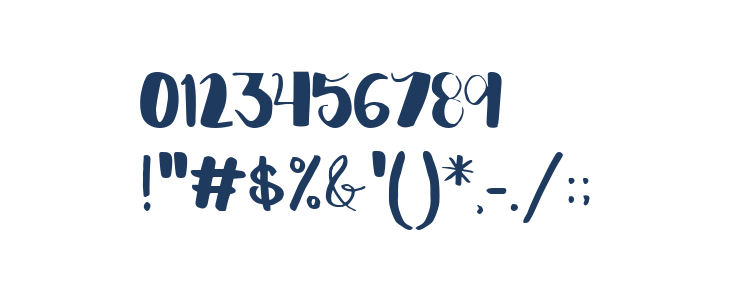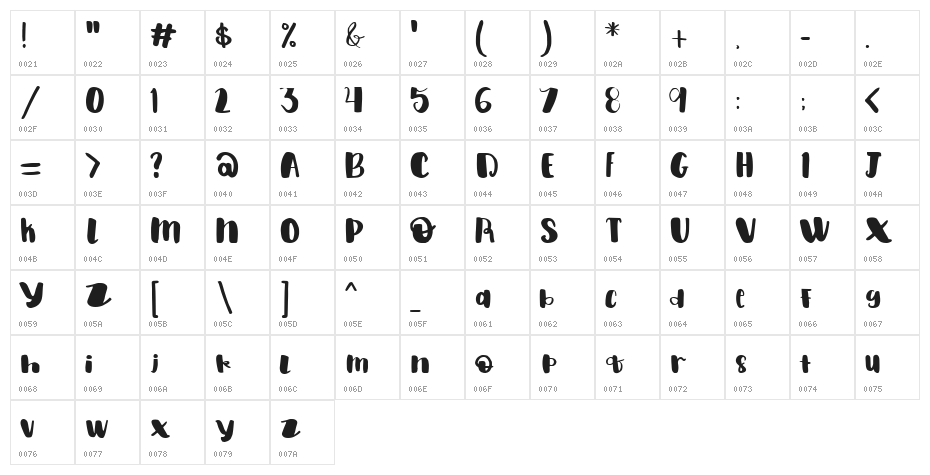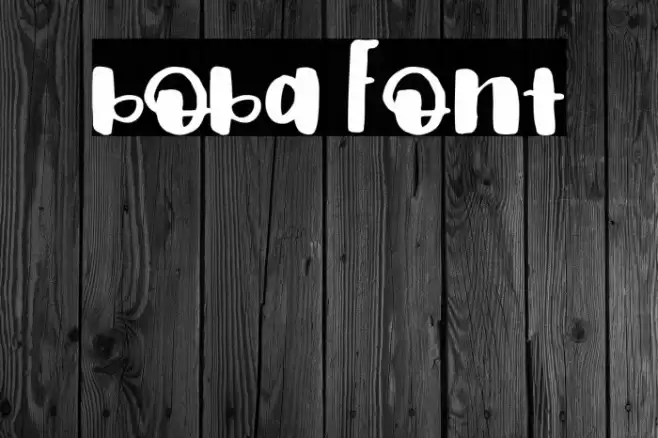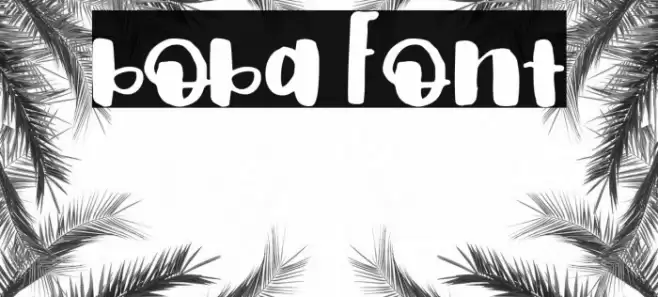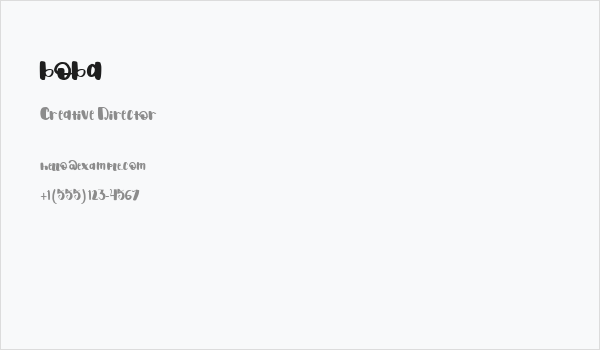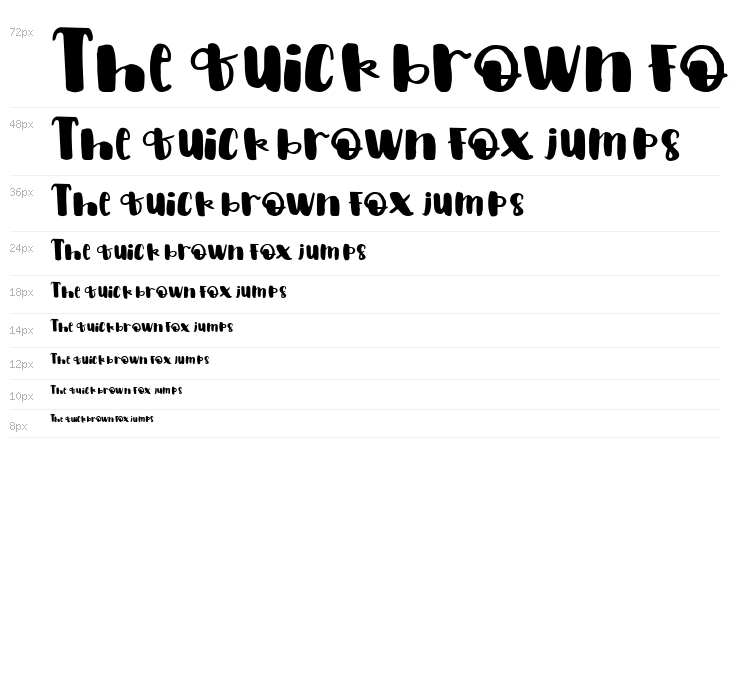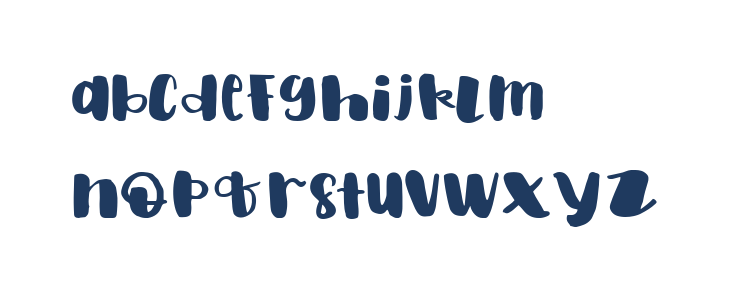
boba Font
boba Description
This font features a playful and bold style with a handwritten appearance. The characters are thick and rounded, giving them a friendly and approachable look. The uppercase and lowercase letters maintain a consistent weight, while the numbers and special characters complement the overall design. The strokes are smooth and fluid, adding to the casual and informal vibe. This font is perfect for projects that require a touch of whimsy and creativity, making it ideal for children's books, playful branding, or artistic posters.
Overall StylePlayful
Use CaseLogos, Posters, Creative projects
Proposed ProjectsIdeal for children's books, playful branding, artistic posters, and creative projects.